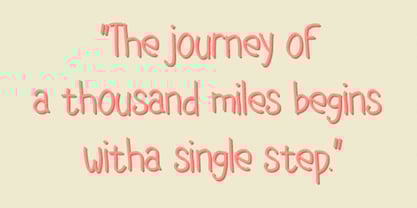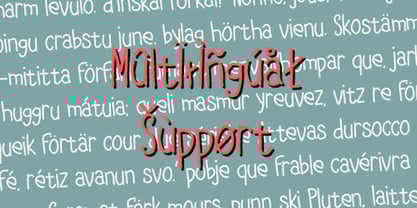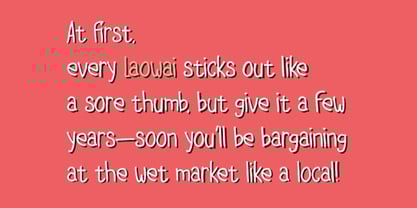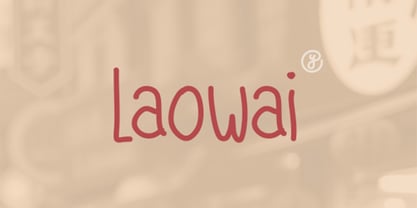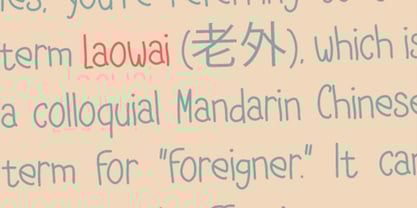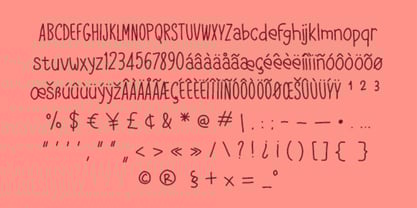
Laowai
von Yebhu
Die Schriftfamilie Laowai wurde von Untung Prasetyo entworfen und von Yebhu veröffentlicht. Laowai enthält 1 Stile. Mehr über diese Familie
Laowai Font: The Global Soul Typeface
Introducing Laowai , a bold and culturally rich typeface inspired by the dynamic blend of foreign curiosity and deep-rooted adaptation. Designed for global storytellers, cross-cultural creators, and visionaries who thrive at the intersection of East and West, Laowai is more than a font—it’s a celebration of cultural fluency. With its harmonious fusion of modern minimalism and traditional Chinese calligraphic hints, this typeface embodies the spirit of those who navigate dual worlds with ease, making it ideal for projects that bridge boundaries and spark connection.
The Essence of Laowai Font
Laowai captures the duality of being an outsider-turned-insider—a typographic journey through adaptation, curiosity, and belonging. Its design mirrors the nuanced balance of foreign charm and local authenticity, offering a visual language for those who embrace cultural hybridity. Whether you’re crafting designs for global audiences or celebrating cross-cultural narratives, Laowai delivers sophistication with a worldly edge.
Key Features:
• Cultural Fusion Aesthetic:
Laowai blends sharp, contemporary lines with subtle nods to Chinese calligraphy, creating a seamless dialogue between Eastern and Western design traditions. The result? A font that feels both familiar and exotic.
• Adaptive Versatility:
From sleek corporate branding to vibrant cultural campaigns, Laowai adapts effortlessly. Its clean structure ensures readability, while its unique details add intrigue—perfect for projects that demand both professionalism and personality.
• Global Multilingual Support:
Supports Latin. Communicate across borders without losing stylistic cohesion.
• Modern Minimalism with Depth:
Clean geometric forms are softened by organic strokes, evoking the imperfections of hand-drawn characters. This balance makes Laowai ideal for modern branding, editorial layouts, and digital interfaces.
• Digital-First Optimization:
Crisp on screens, elegant in print. Laowai maintains its clarity and impact across devices, from mobile apps to large-scale posters, ensuring a consistent brand voice everywhere.
Mood & Personality:
Laowai radiates cosmopolitan confidence with a touch of wanderlust. It’s the typographic equivalent of a global nomad—rooted in curiosity, fluent in diversity, and unafraid to stand out. Think of bustling Shanghai streets meets minimalist Scandinavian design, or a handwritten note from a foreign friend who’s made China their home.
Ideal Use Cases:
• Cross-Cultural Branding:
Perfect for international businesses, travel agencies, or lifestyle brands targeting culturally savvy audiences. Laowai adds authenticity to campaigns that celebrate diversity.
• Bilingual Publications:
Magazines, menus, or websites requiring seamless Latin-Chinese script integration. Maintain aesthetic harmony while speaking to global readers.
• Cultural Events & Exhibitions:
Promote art shows, film festivals, or cultural exchanges with a font that mirrors the event’s boundary-pushing spirit.
• Travel & Lifestyle Content:
Blogs, social media posts, or travel guides that inspire exploration and connection. Laowai ’s global vibe resonates with adventurers and expats alike.
• Tech & Innovation:
Startups and apps focused on global markets will appreciate Laowai ’s modernity and adaptability, conveying innovation with a human touch.
Why Choose Laowai Font?
In a world where cultural borders are fading, Laowai speaks to the beauty of hybrid identities. It’s not just a font—it’s a tool for storytellers who want to bridge gaps, spark curiosity, and celebrate the magic of navigating multiple worlds. Whether you’re designing for a multinational campaign or a personal passion project, Laowai ensures your message feels both globally resonant and intimately authentic.
Let Your Designs Travel Far
With Laowai , every character tells a story of adaptation and connection. Perfect for projects that demand cultural nuance without sacrificing modern appeal, this font empowers you to create work that’s as boundaryless as the ideas it represents.
Designer: Untung Prasetyo
Foundry: Yebhu